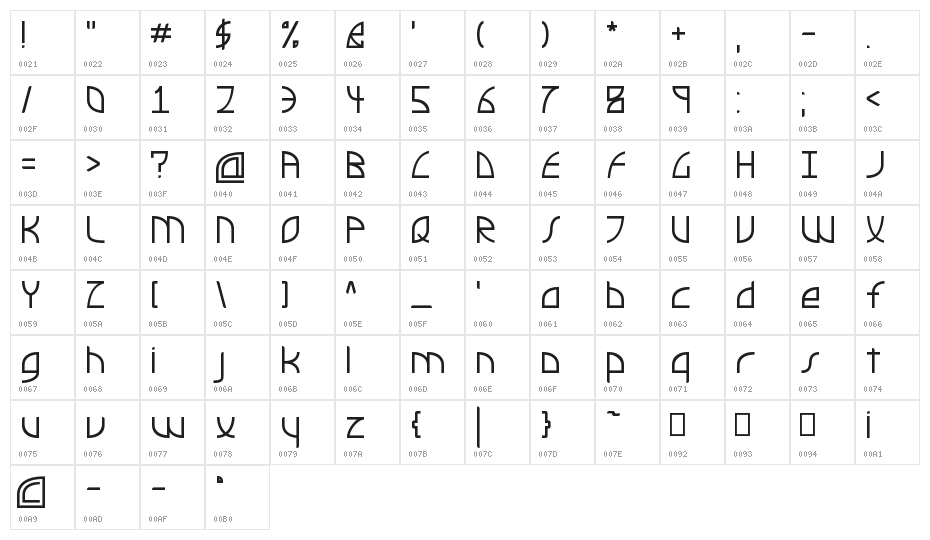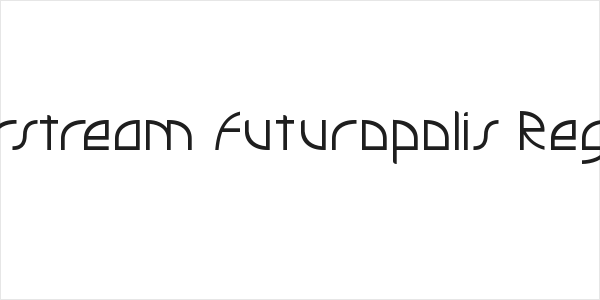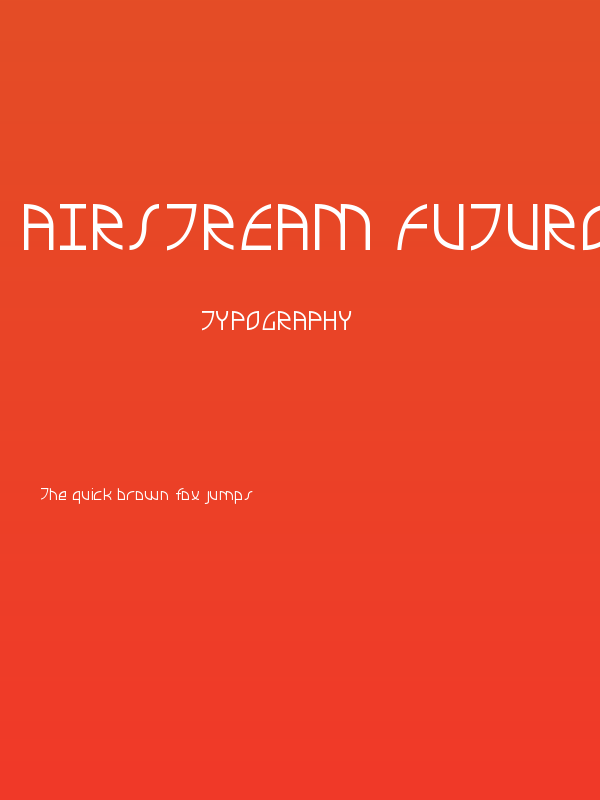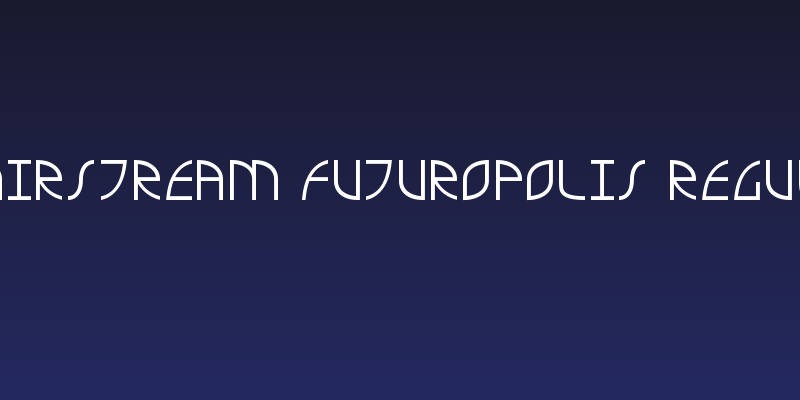
Airstream Futuropolis Regul Font
Airstream Futuropolis Regul Description
This font features a futuristic and geometric design, characterized by clean lines and a minimalist aesthetic. The uppercase letters exhibit a unique angularity, with sharp edges and a consistent stroke width that conveys a sense of modernity and innovation. The lowercase letters maintain this geometric style, offering a cohesive look across different text cases. The numerals are distinct and align well with the overall design, ensuring readability while maintaining the font's avant-garde appeal. Special characters are crafted with the same attention to detail, providing versatility for various design needs.
| Proposed Projects | Ideal for technology branding, sci-fi themed projects, modern advertising, and innovative product packaging. |